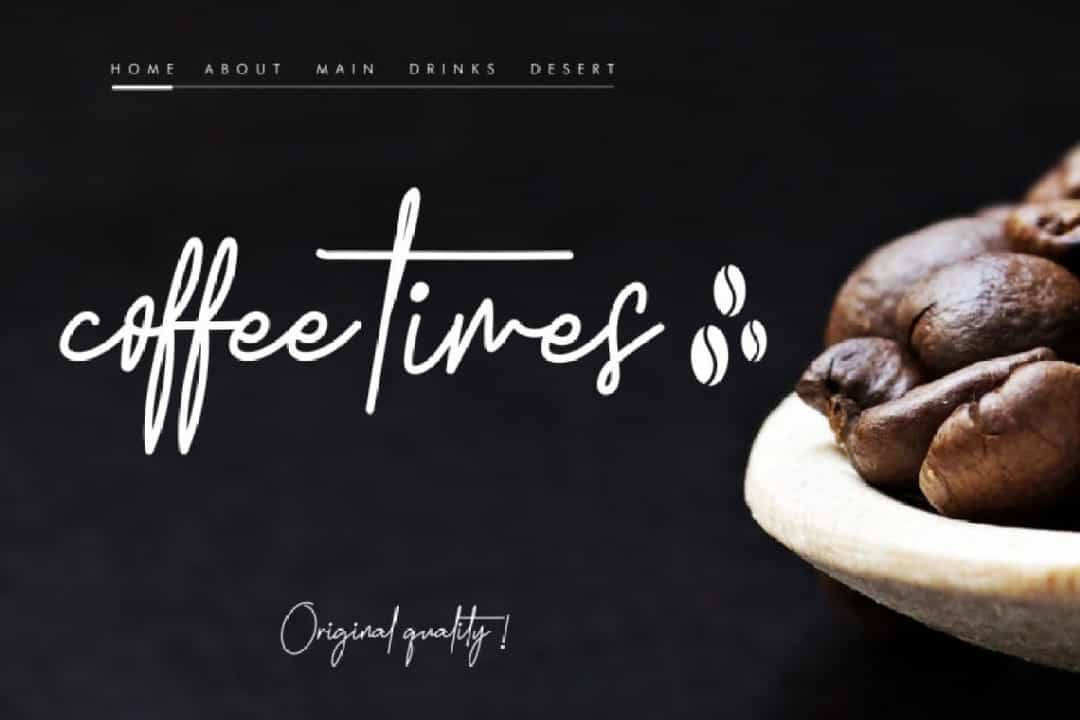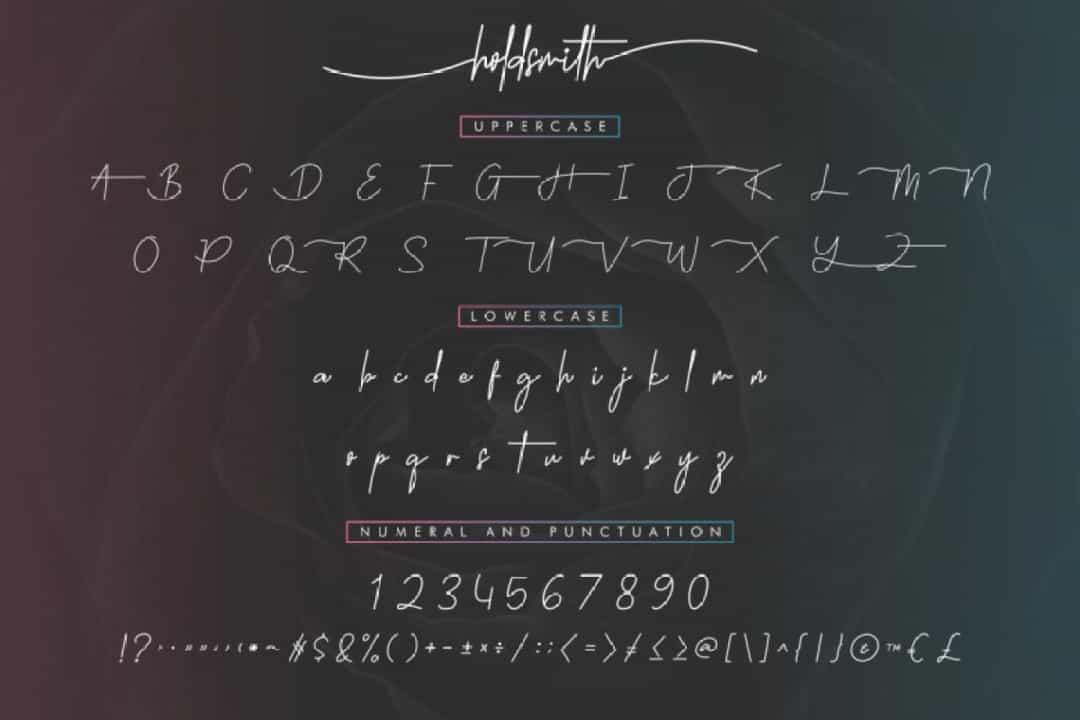
Holdsmith is an elegant handwritten font perfect for all of your projects. Be entranced by its distinctive style and timeless aesthetic before using this font to craft striking designs! PUA encoded, so that all swashes and glyphs can be quickly accessed!